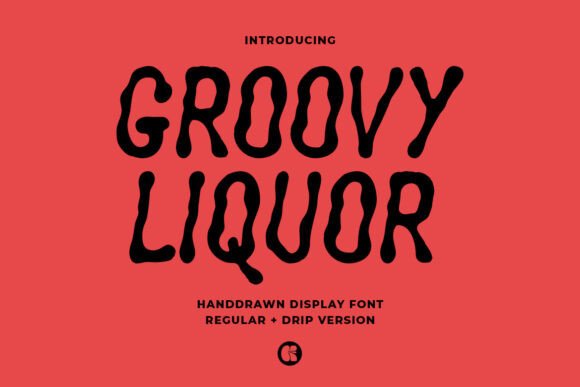
Groovy Liquor Font: Elevate Your Designs with a Unique Hand-Drawn Display Font
In the world of typography, fonts play a crucial role in conveying the tone and personality of a design. When it comes to creating visually appealing and artistic designs, the right font can make all the difference. Introducing Groovy Liquor, a unique hand-drawn display font that captures the essence of flowing waves with its gentle curves and fluid lines. In this article, we’ll dive into the features and benefits of Groovy Liquor, and explore how this font can elevate your designs to the next level.
Key Features of Groovy Liquor Font
- Unique Hand-Drawn Design: Groovy Liquor is a carefully crafted, hand-drawn display font that exudes a sense of playfulness and creativity.
- Gentle Curves and Fluid Lines: The font’s gentle curves and fluid lines evoke the feeling of flowing waves, adding a touch of whimsy to your designs.
- Two Font Styles: Groovy Liquor comes in two types: regular and drip, offering versatility in creating visually appealing designs.
- Playful and Artistic Aesthetic: This font is perfect for designers looking to add a touch of playfulness and creativity to their projects.
Who Can Use Groovy Liquor Font?
Groovy Liquor is an excellent choice for designers, artists, and crafty individuals who want to add a touch of personality to their projects. This font is ideal for:
- Graphic Designers: Use Groovy Liquor to create eye-catching posters, flyers, and brochures that require a playful and artistic touch.
- Artists and Illustrators: Add a unique and creative flair to your artwork with Groovy Liquor’s hand-drawn design.
- Crafty Individuals: Use Groovy Liquor to create handmade cards, gift tags, and other craft projects that require a personal touch.
Design Tips for Using Groovy Liquor Font
To get the most out of Groovy Liquor, here are some design tips to keep in mind:
- Pair with Simple Backgrounds: Let Groovy Liquor be the focal point of your design by pairing it with simple backgrounds that don’t compete for attention.
- Experiment with Colors: Play around with different color schemes to find the perfect combination that complements Groovy Liquor’s playful and artistic vibe.
- Use for Headlines and Titles: Groovy Liquor is perfect for headlines and titles, adding a touch of personality and whimsy to your designs.
Benefits of Using Groovy Liquor Font
So, why choose Groovy Liquor for your design projects? Here are some benefits of using this unique hand-drawn display font:
- Adds Personality to Designs: Groovy Liquor’s playful and artistic aesthetic adds a touch of personality to your designs, setting them apart from the rest.
- Versatile and Flexible: With two font styles to choose from, Groovy Liquor offers versatility and flexibility in creating visually appealing designs.
- Easy to Read: Despite its playful design, Groovy Liquor is easy to read, making it perfect for headlines, titles, and short paragraphs of text.
In conclusion, Groovy Liquor is a unique hand-drawn display font that can elevate your designs to the next level. With its gentle curves, fluid lines, and playful aesthetic, this font is perfect for designers, artists, and crafty individuals looking to add a touch of personality to their projects. Whether you’re creating graphic designs, artwork, or handmade crafts, Groovy Liquor is an excellent choice for adding a touch of whimsy and creativity.